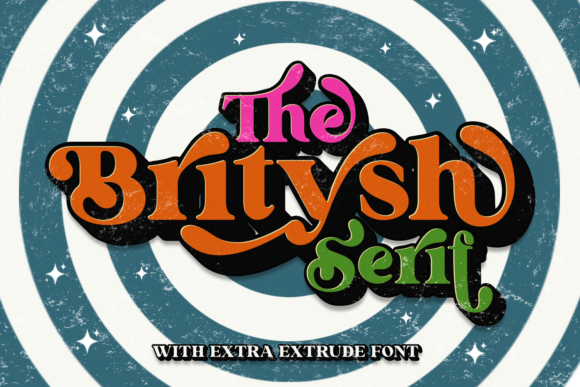
Britysh Font
Britysh is a bold and retro styled display font. It reads as strong, confident, and dynamic and can add tons of nostalgic character to your designs. Britysh is PUA encoded which means you can access all glyphs and swashes with ease!